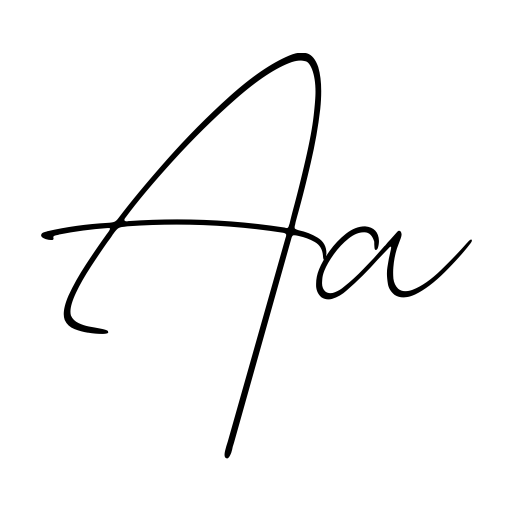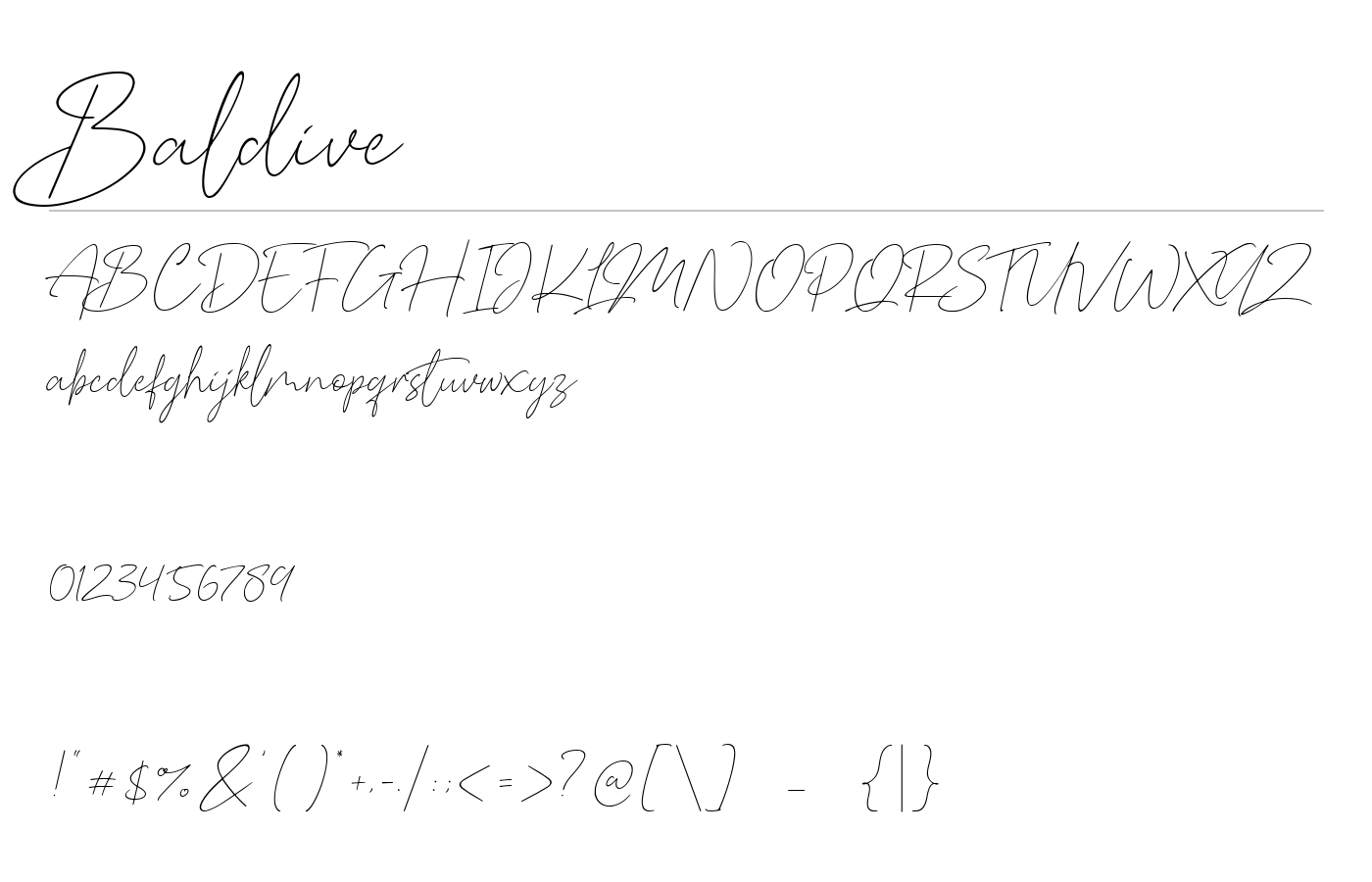
Baldive is an elegant, delicate script font characterized by its fine, flowing lines and graceful handwritten style. With its slender weight and smooth, airy letterforms, it conveys a sophisticated yet approachable personality, ideal for branding, invitations, and editorial projects that seek a personal, refined touch. Its light and stylish appearance makes it perfect for adding a sense of elegance and charm to logos, wedding materials, and fashion-related designs.
Baldive Font
About Baldive Font
| Font family | Baldive Font |
| Designer | Balpirick 2020 |